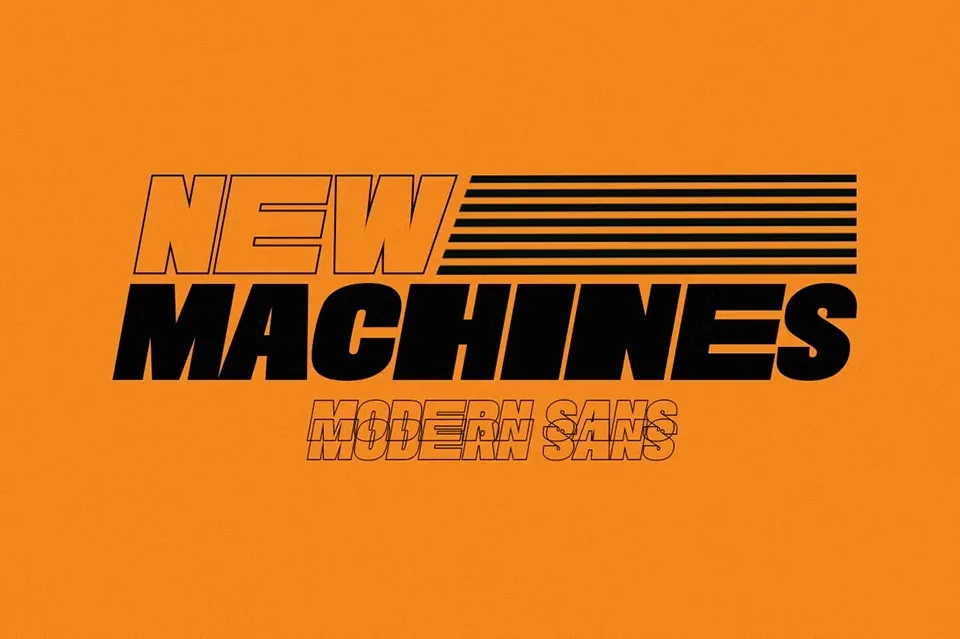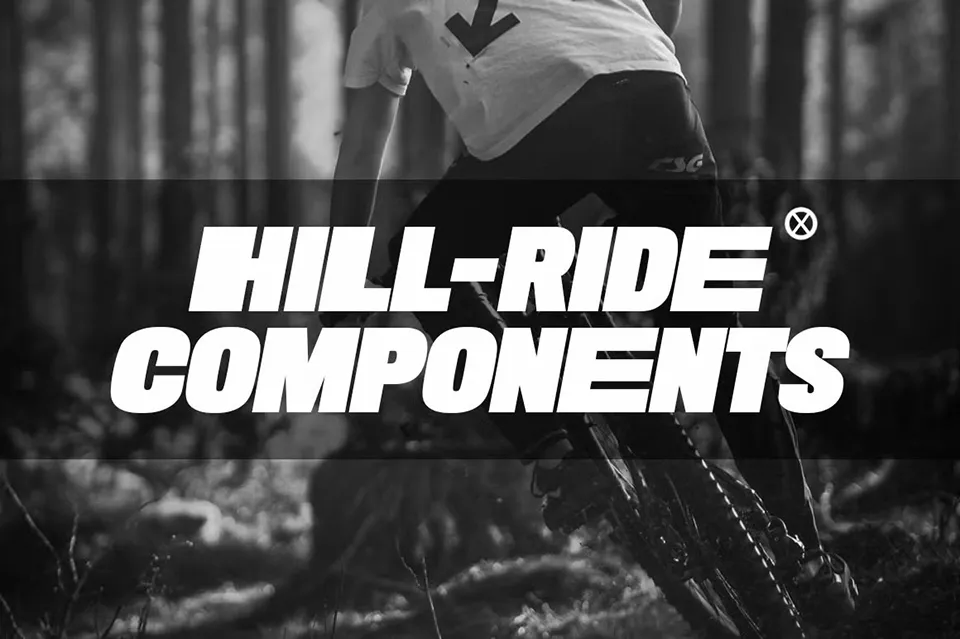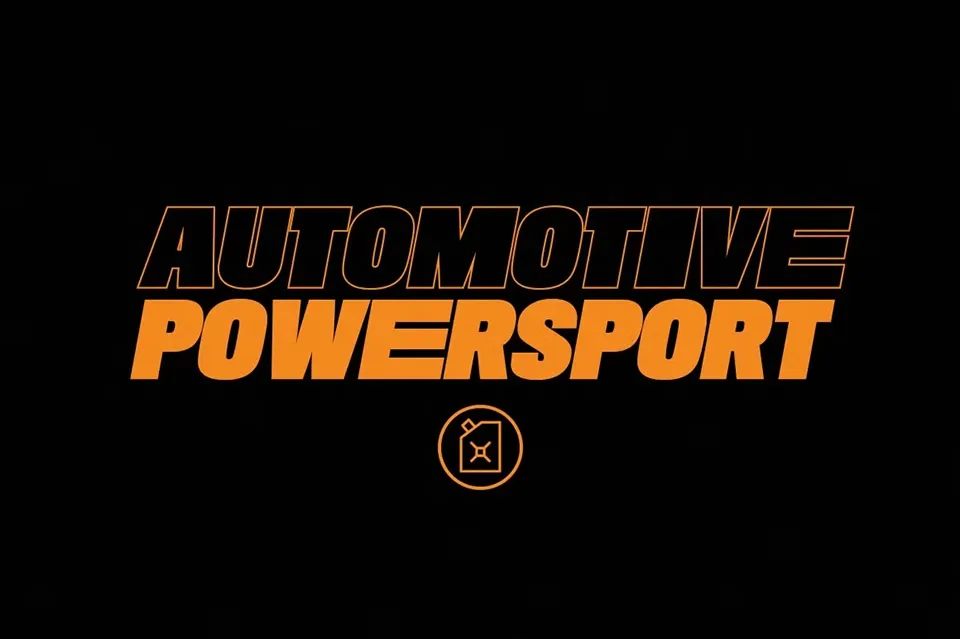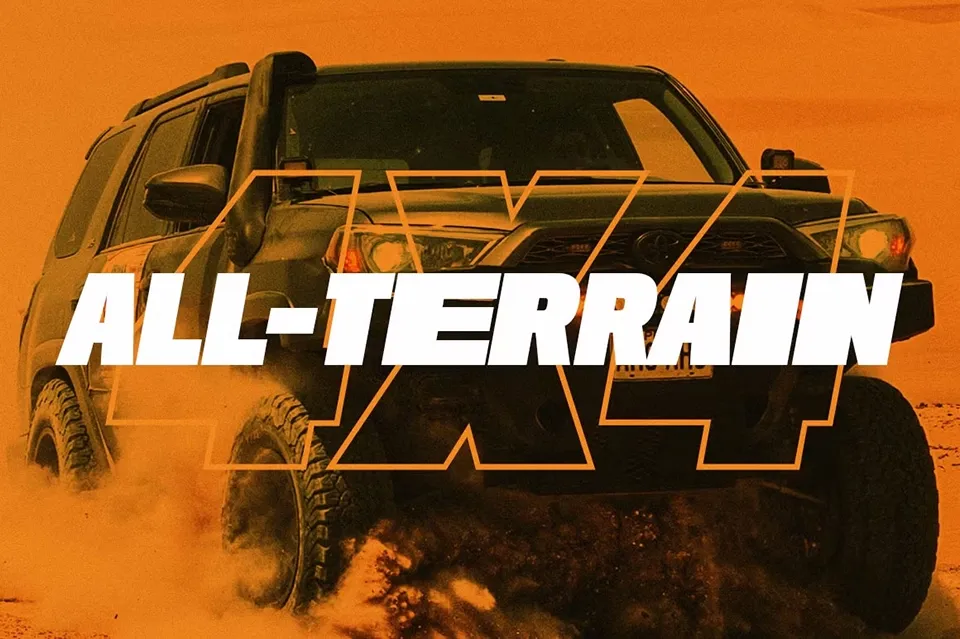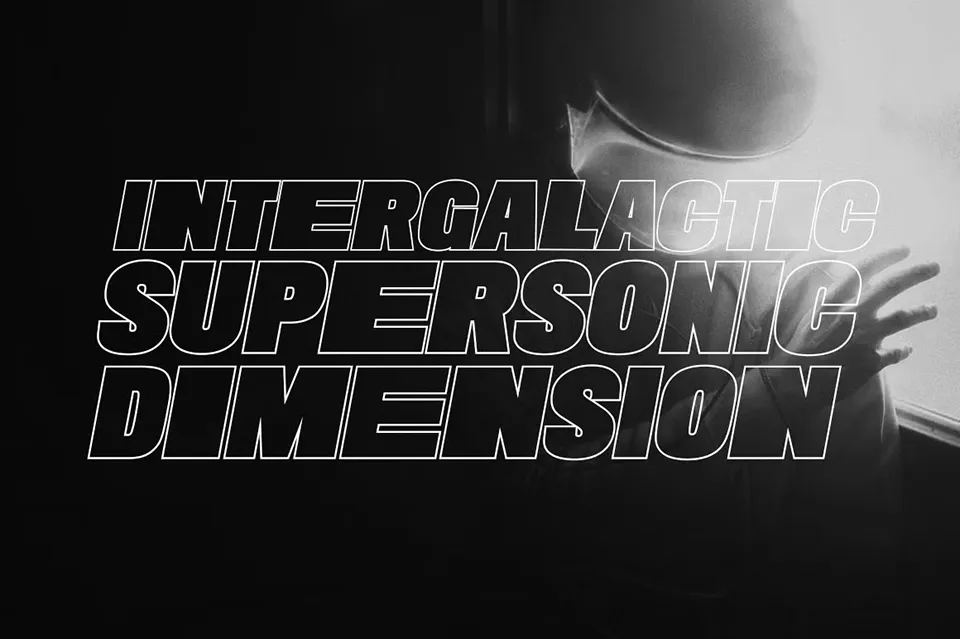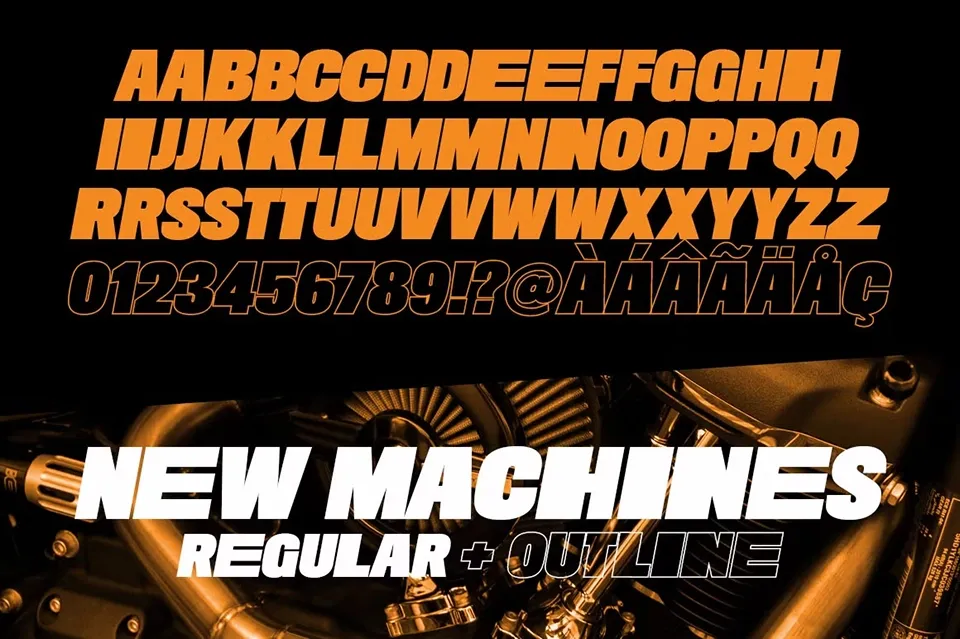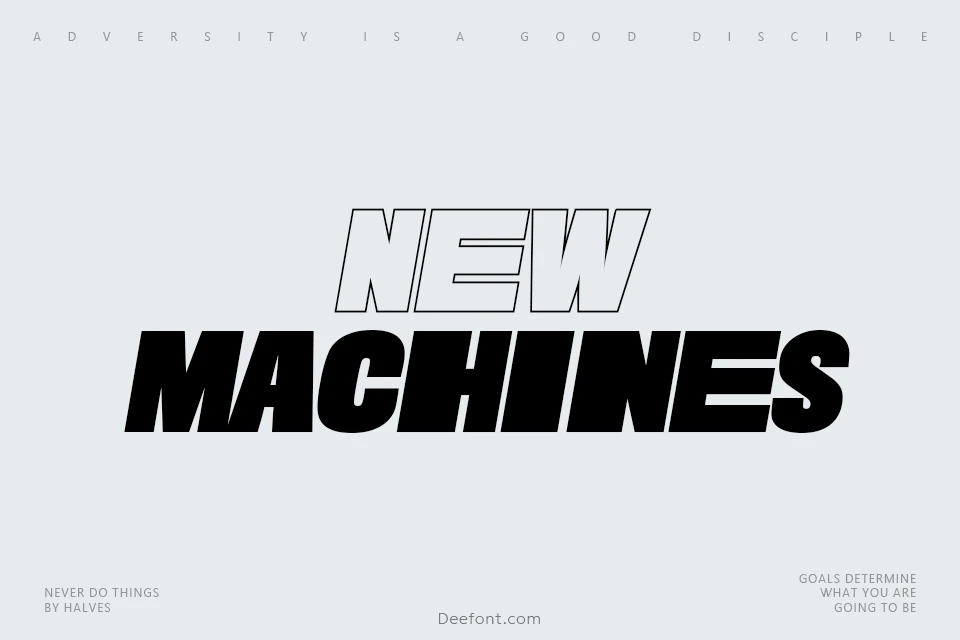
New Machines Sans Serif Font
New Machines Font is a modern, ready-to-use sans serif typeface with an extended, trendy look. Its stylish glyphs are easily accessible, making it perfect for both beginners and professionals. The font comes in both Regular and Outline versions, supports multilingual characters, and is designed for hassle-free use in any creative project. Just install the font and start designing-no technical expertise required. Toggle the shift key to access alternates and enjoy a modern, fashionable display font that elevates your work.New Machines Sans Serif Font brings a luxurious, contemporary edge to your typography.